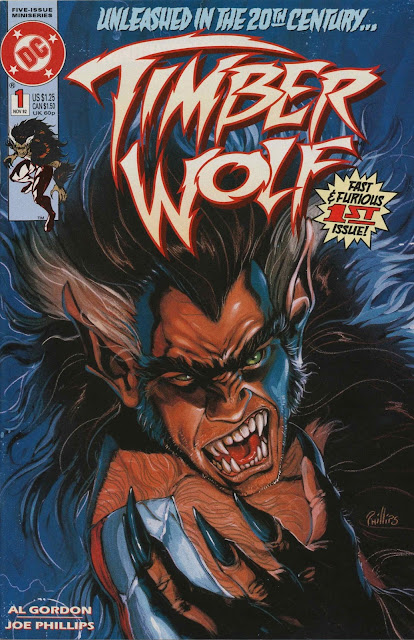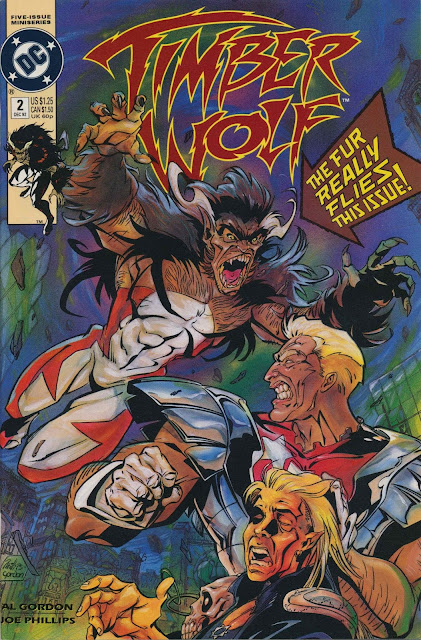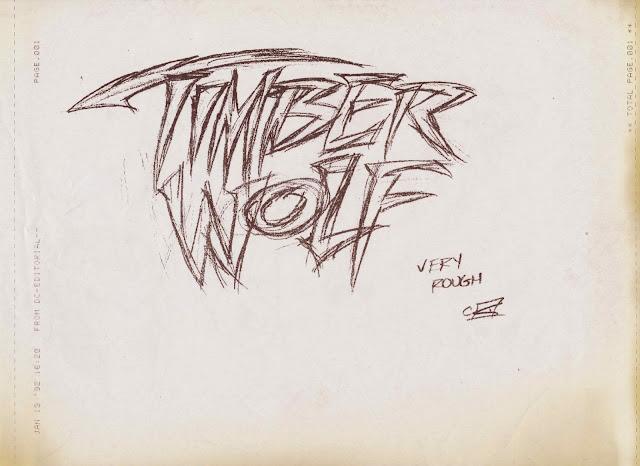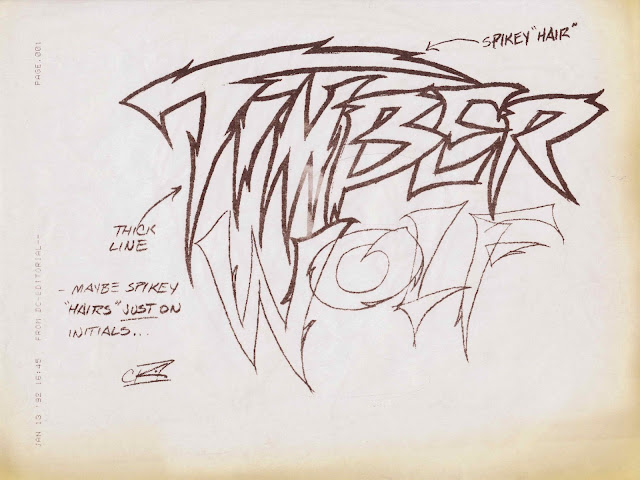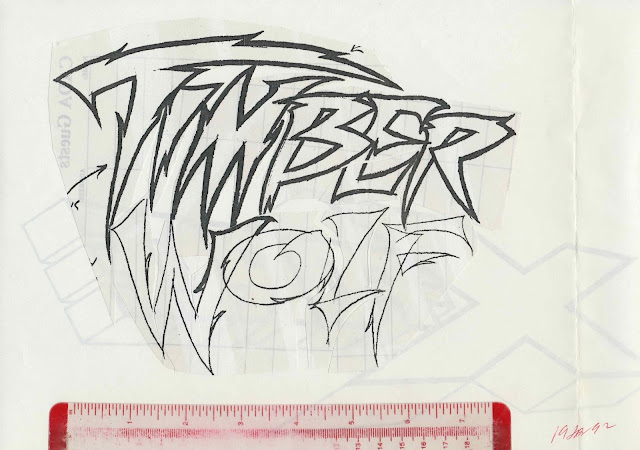
Comics: Joe Letterese, Letterer
Joseph F. “Joe” Letterese was born on June 14, 1917, in the Bronx, New York. His birth date is from the Social Security Death Index and the birthplace is based on census records.
In the 1920 U.S. Federal Census, Letterese was the oldest of two sons born to Pasquale and Katie (Catherine Devirgiles), both Italian emigrants. Letterese’s father was employed as a hatter. The family resided in the Bronx at 4547 Park Avenue.
According to the 1925 New York state census, the address was the same and included two more children, Frances and Marie.
The 1930 census said the Letterese family’s address was 1926 Yates Avenue in the Bronx.
Letterese was the subject of “DC Profiles Number 50” which appeared in DC comic books dated November 1979. The profile said he graduated from the School of Industrial Art in the late 1930s and “started as a commercial artist”.
However, in the 1940 census, Letterese was a helper in the milk industry. He lived with his parents and four siblings in the Bronx at 1921 Melrose Avenue.
During World War II Letterese was drafted and enlisted in the army on July 8, 1942. His occupation was stock clerk. The DC profile said he served “in England, fighting Hitler’s bombers as an aircraft identification expert, injured during the bombing of London, Joe returned to the U.S.…” Letterese’s veterans Beneficiary Identification Records Locater Subsystem file said he was discharged October 6, 1943. Letterese received the New Jersey Distinguished Service Medal in 2001.
The profile said:
After a brief stint doing art and lettering for Parents Magazine, Joe moved to the production department of Atlas (later Marvel) Comics where he worked on covers, designed logos (several of which are still being used today) and served as Stan Lee’s assistant.”
When Atlas shut down and nearly went out of business in the late 1950s, Joe approached DC for some freelance work. Then-Assistant Editor Murray Boltinoff and Editor Mort Weisinger admired Joe's abilities and gave him the assignments that ultimately led to his being hired as a full-time Corrections Artist in DC’s Production Department….
In John Romita and All That Jazz! (2007), Romita was interviewed by Jim Amash who mentioned Letterese. Romita said, “Oh, yes, I knew Joe Letterese from my DC years. He worked at Marvel in the ’40s, before I knew him. But in the ’50s, whenever I delivered a story to DC and had to do corrections, I’d go into the Bullpen, so I got to know Joe Letterese, Stan Starkman, Eddie Eisenberg, and Sol Harrison. I got to know a lot of guys in the Bullpen….”
The DC logos mentioned in the above profile may not have been for the covers but for interior pages, advertising or merchandising.
Ridgewood, New Jersey city directories for 1954, 1956 and 1960 listed Letterese as a letterer in New York. His wife was Katherine and their address was 10-03 Canger in Fair Lawn.
Letterese passed away June 3, 1991. The Record (Hackensack, New Jersey), June 5, 1991, said:
Joseph F. Letterese Sr., 73, of Wyckoff, formerly of Fair Lawn, died Monday. Before retiring in 1981, he was a commercial artist for DC Comics/Warner Communications, New York City.
He was an Army veteran of World War II.
Surviving are his wife, Katherine Kondogianis Letterese, and a son, Joseph Jr. of Wyckoff.
Letterese was laid to rest at George Washington Memorial Park.
Monday, November 6, 2017
Comics: Selma Meyers Gleit, Forgotten Artist
Selma Meyers was born April 15, 1928, in Brooklyn, New York. The birth date is based on information at Tributes.com and Dignity Memorial.
In the 1930 U.S Federal Census, Selma was the second and youngest child of Louis, a baker, and Cecilia, who were Polish emigrants. Selma’s older brother was “Abie” [Abraham]. The family resided in Brooklyn at 1456 44th Street
The 1940 census recorded the Meyers’ new address in Brooklyn, 114 Manjer Street, and two additional children, Harriet and Melvin.
Selma graduated from New York City’s School of Industrial Art in 1945. On page 14 of the yearbook was Meyers’ name, specialty and achievements: “Silk Screen. Valedictorian; General Excellence Award; Designed commencement program cover.” The Class of 1945 included Rocco Mastroserio, Joe Orlando, Peter Pandolfi, Gaspar Saladino, and August Scotto
The Northport Journal, (New York), June 23, 1949, covered Selma’s marriage.
Gleit–Meyers
The wedding of Miss Selma Meyers and Bernard Gleit took place last Sunday evening, June 12, in the Temple Auditorium in Brooklyn. Immediately following the ceremony, a reception was held in the Auditorium for friends and family of the bride and groom, the guests numbering two hundred. Mr. and Mrs. Gleit left later for their honeymoon trip to Schroon Lake, a resort in the Adirondacks, where they stayed until their return on Sunday, June 19.
Photocopy with changes made to letters T, W, M, B and O.
The T and I do not touch. I also made an alternate W.
Timber Wolf logo with version one of W.
Timber Wolf logo with version two of W.
Photocopy with additional changes to be made.
Timber Wolf was published from November 1992 to March 1993.